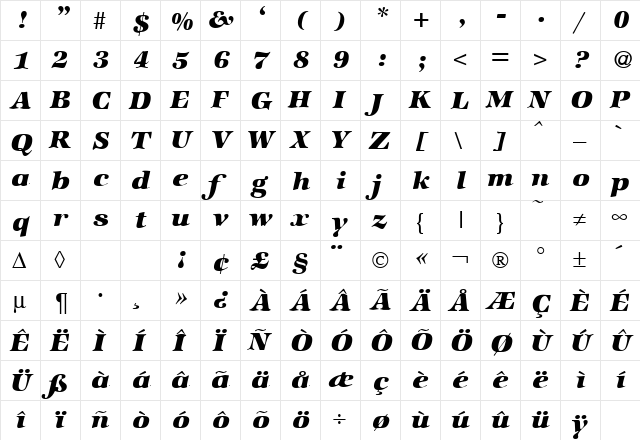
ZabriskieInternationalHeavy RegularItalic
Design Context for ZabriskieInternationalHeavy Typeface
ZabriskieInternationalHeavy takes a measured approach to typography — its balanced proportions and neutral character make it a reliable workhorse for both digital and print work. The slanted form adds forward momentum and visual energy.
Pro Tip: Try ZabriskieInternationalHeavy for annotation and caption copy alongside an upright companion — the contrast in angle creates a dynamic but ordered typographic system.